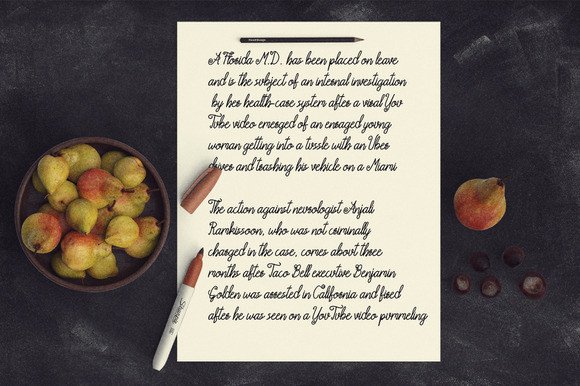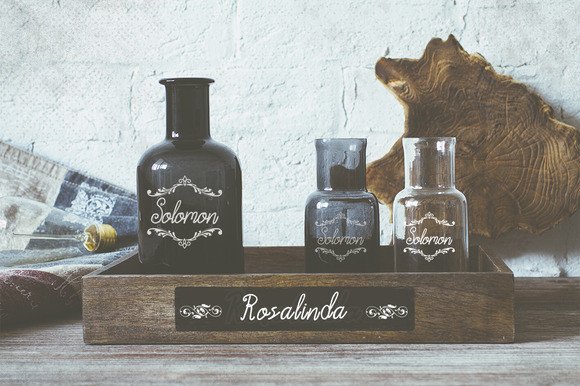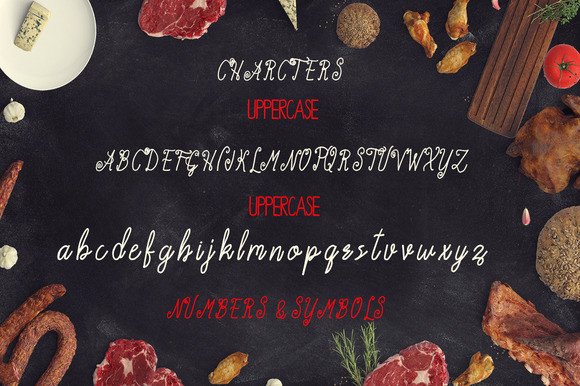
Acarita Font: Elevate Your Designs with a Handmade Marker Style
In the world of typography, fonts play a crucial role in making or breaking a design. A well-chosen font can elevate your project from ordinary to extraordinary. If you’re a designer, crafty enthusiast, or simply someone who appreciates beautiful typography, you’re in luck. Introducing Acarita Font, a fashionable and versatile typeface that’s perfect for a wide range of creative projects.
What is Acarita Font?
Acarita Font is a stunning handmade marker font that’s designed to add a personal touch to your designs. With its unique, hand-crafted aesthetic, this font is ideal for projects that require a distinctive and eye-catching look. Whether you’re working on a logo, magazine cover, invitation letter, or book cover, Acarita Font is the perfect choice.
Key Features of Acarita Font
- Handmade with love: Acarita Font is carefully crafted by hand, giving it a unique and organic feel that’s hard to replicate with digital fonts.
- Marker-style aesthetic: The font features a beautiful marker-style design that’s perfect for creating eye-catching and artistic designs.
- Highly versatile: Acarita Font can be used for a wide range of projects, from logos and magazine covers to invitation letters and book covers.
Acarita Font is a dream come true for designers and crafters who want to add a personal touch to their projects. With this font, you can create stunning designs that stand out from the crowd. Here are some ideas to get you started:
- Logos: Use Acarita Font to create a unique and memorable logo for your brand or business.
- Magazine covers: Add a touch of elegance and sophistication to your magazine covers with this beautiful font.
- Invitation letters: Create stunning invitation letters for weddings, parties, and other special events.
- Book covers: Use Acarita Font to create eye-catching book covers that grab readers’ attention.
Tips for Using Acarita Font
To get the most out of Acarita Font, here are some tips to keep in mind:
- Experiment with colors: The font looks great in a variety of colors, so don’t be afraid to experiment and find the perfect hue for your design.
- Play with textures: Add some texture to your design by combining Acarita Font with different textures and patterns.
- Keep it simple: Don’t overcomplicate your design. Acarita Font is beautiful on its own, so let it shine by keeping your design simple and elegant.
Acarita Font is a versatile and beautiful handmade marker font that’s perfect for designers, crafters, and anyone who appreciates stunning typography. With its unique aesthetic and wide range of uses, this font is sure to become a staple in your design toolkit. So why wait? Download Acarita Font today and start elevating your designs to the next level!